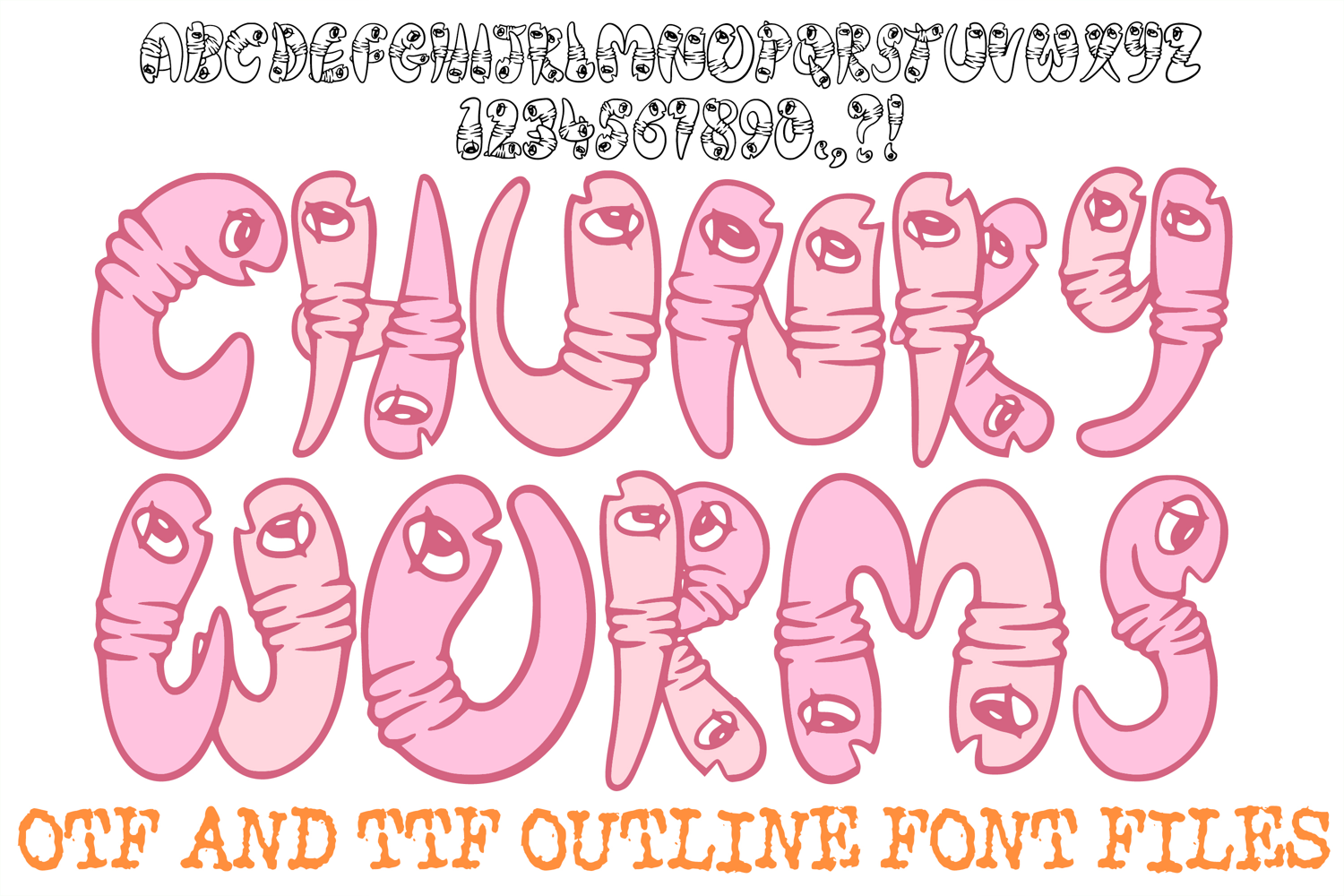
Chunky Worms Font Hand Drawn Comic Snakes Wiggly Lettering
The Chunky Worms Font is a bold and humorous display typeface that reimagines every letter as a thick, wiggly garden critter. Featuring hand-drawn details like wide expressive eyes, segmented body rings, and "chunky" silhouettes, this font is the ultimate choice for playful science projects, children’s book titles, garden-themed branding, and high-energy "creepy-crawly" party designs.
Each character is meticulously designed with a heavy, organic weight that provides a friendly and mischievous personality. Whether you are a teacher creating engaging educational materials or a crafter designing bold vinyl stickers for nature enthusiasts, the Chunky Worms Font delivers a professional, artisan-sketched look that stands out with its unique, squirmy charm.
Bold Illustrative Detail: Every letter (A–Z) and number (0–9) features integrated worm eyes and segmented textures, making the text feel alive.
High-Impact Thickness: The "chunky" weight of the letters makes your headlines dominant and easy to read, even when layered over complex backgrounds.
Versatile Design Asset: The clean hand-drawn outlines are perfect for coloring activities, sublimation, or bold apparel printing.